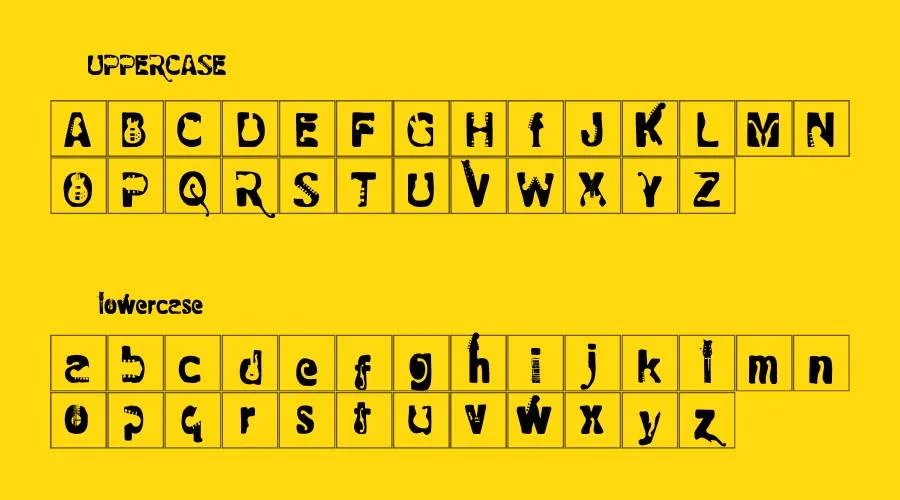
About Rock Electric Font
The Rock Electric font is a typeface, created by Matthew Austin Petty is a beautiful collection of 91 characters that can add spark to any design project. This typeface contains a range of lower and upper case letters, punctuation, numbers, and alternatives character that have come in a range of different sizes from regular to light and italic to bold.
The Rock electric typeface has been carefully crafted to be both versatile and attention-grabbing, with the upper and lower cases having slightly different designs to make sure your text is perfect for any type of project. The characters have been designed with plenty of white space so that they don’t become too overpopulated when used in combination, making them ideal for use in anything from logos to posters.
The Rock electric typeface also works well in body text, thanks to its readability and crisp lines. Its style adds a touch of sophistication, which makes it an excellent choice for articles and blogs, as well as headers and titles. With the Rock electric typeface, you can create eye-catching designs that capture the attention of your audience.
This Font family supports different types of languages. Furthermore, this font family is great for creating a sense of uniformity throughout a design project, which is invaluable if you want to ensure that all the elements of a design work together harmoniously. Some of the similar fonts that you can freely download are the Badskizoff font and FF Beosans Soft R-14 Font.
Rock Electric Font View
Name | Rock Electric Font |
Designer | Matthew Austin Petty |
Style | Decorative |
Is Rock Electric Font a safe font?
What type is Rock Electric font?
Rock Electric is a display typeface created by Matthew Austin Petty and is a beautiful collection of 91 characters.
Yes, it is easy to read, and especially a perfect typeface for display purposes and to design any large posters that look clear and stylish.